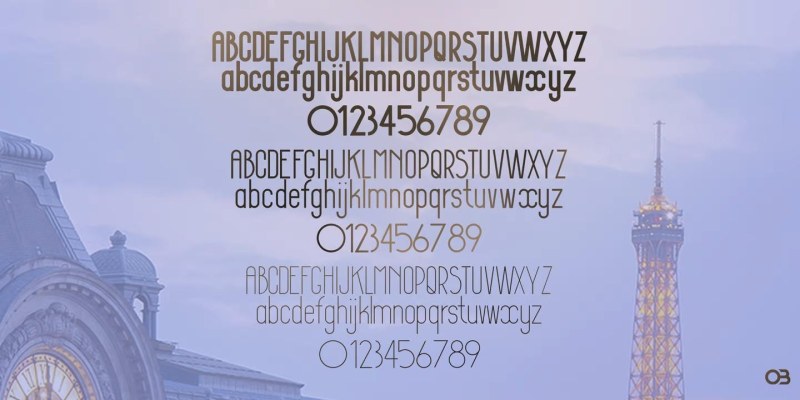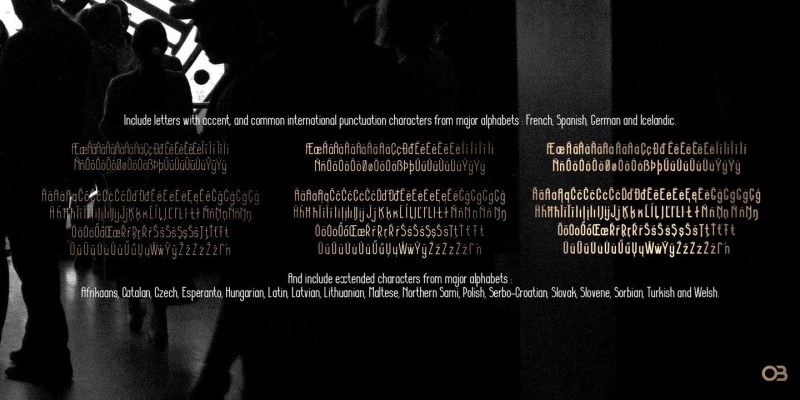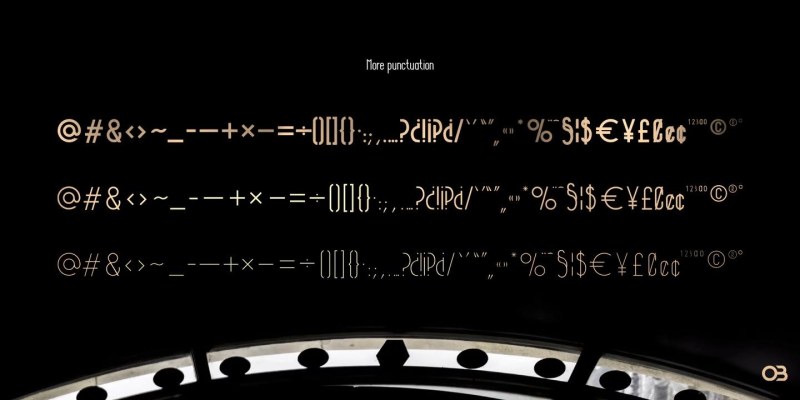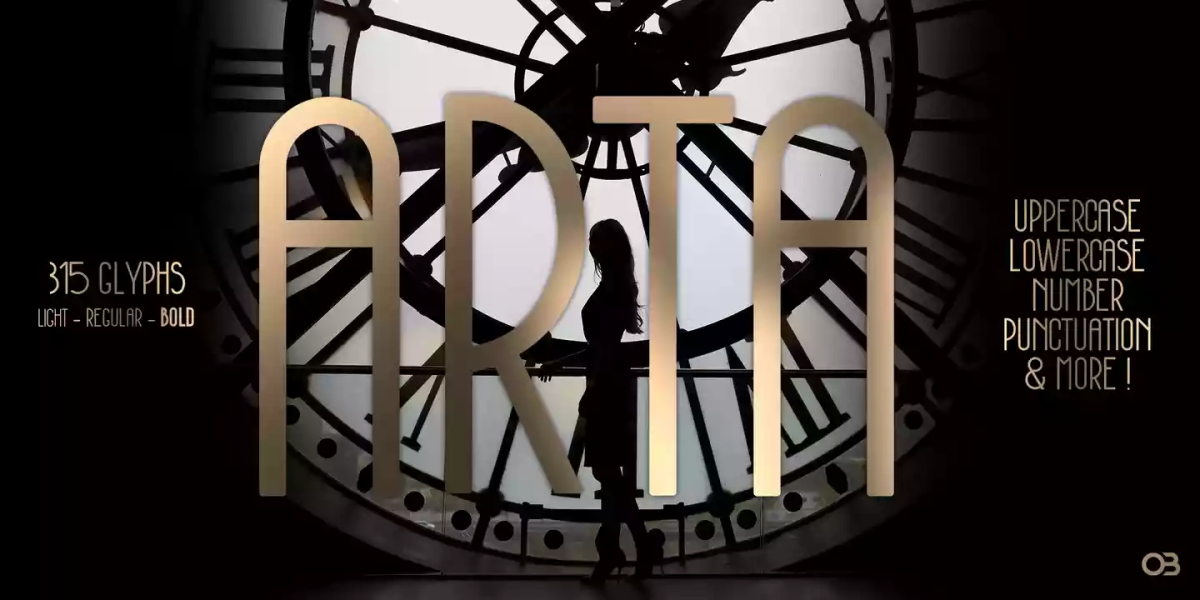
Arta Font Family
ARTA is an ArtDeco style font, inspired by classic font like Newport Classic with elongated typeface with high waisted uppercase letters which curve in an geometric and…
Character set · 321 glyphs
ARTA is an ArtDeco style font, inspired by classic font like Newport Classic with elongated typeface with high waisted uppercase letters which curve in an geometric and elegant way. It consisted of really condensed lettering which had little space available. It’s a well complet font with 315 Glyphs for most latin languages as “English, French, Spanish, German, Icelandic, Afrikaans, Catalan, Czech, Esperanto, Hungarian, Latin, Latvian, Lithuanian, Maltese, Northern Sami, Polish, Serbo-Croatian, Slovak, Slovene, Sorbian, Turkish and Welsh”.